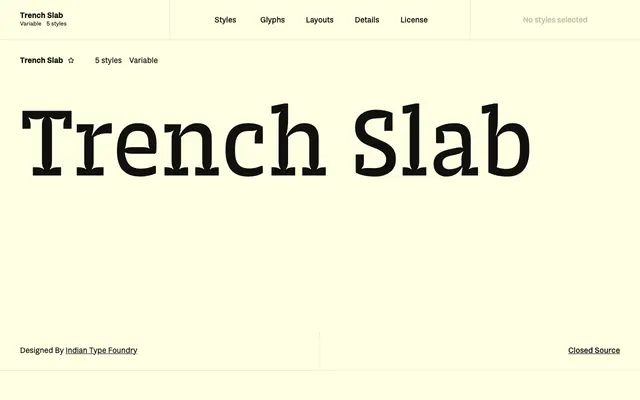
Trench Slab
A slab serif from Indian Type Foundry with exaggerated serifs and prominent ink-traps, intended for display and large-size setting rather than continuous body text.
Part of the broader Trench superfamily alongside Trench Round and Trench Sans, this slab is built around very large serifs and conspicuous ink-traps that give it a distinctive, almost mechanical character. It suits headlines, posters, logos and magazine layouts where the weight and structure of the slab can read at scale. Stylistic sets offer alternate forms including a single-storied capital I without serifs, a double-storied g and variants of M, N, W and w. Available in five static weights plus a variable font, with coverage across 135 languages.
A slab serif with very prominent slabs and large ink-traps, designed by Indian Type Foundry as part of the Trench superfamily. The exaggerated serifs and geometric construction place it firmly in the slab category.